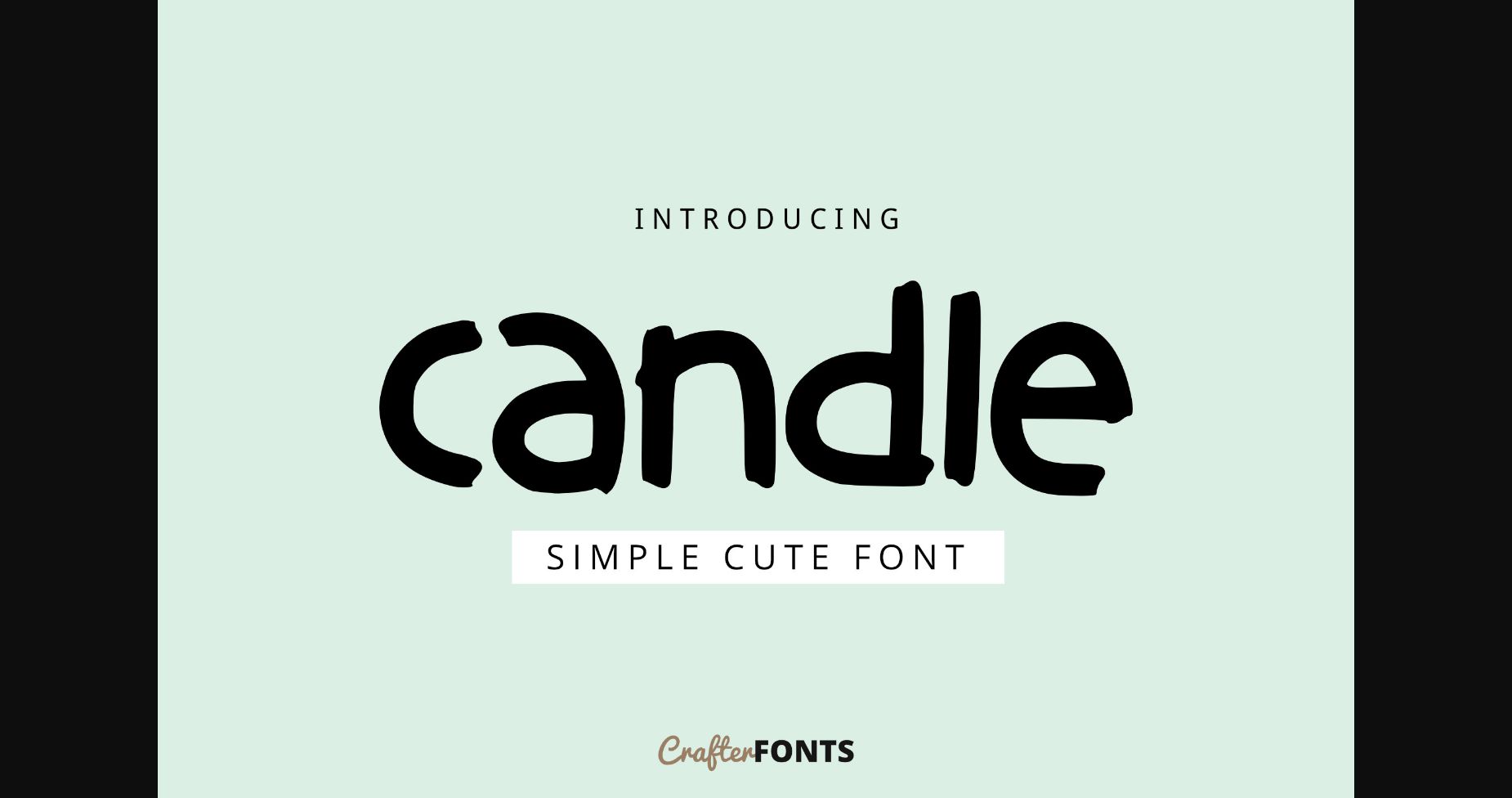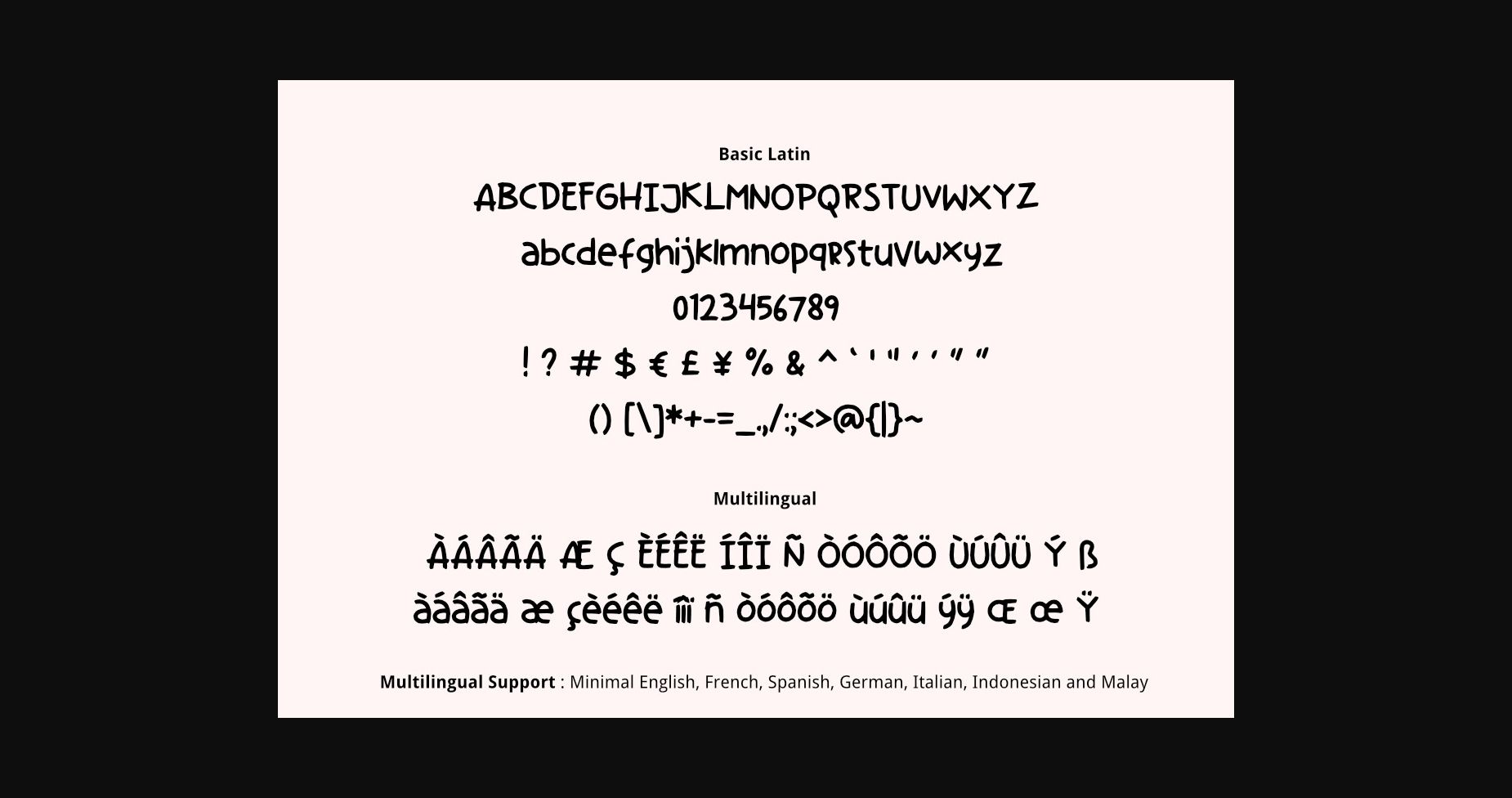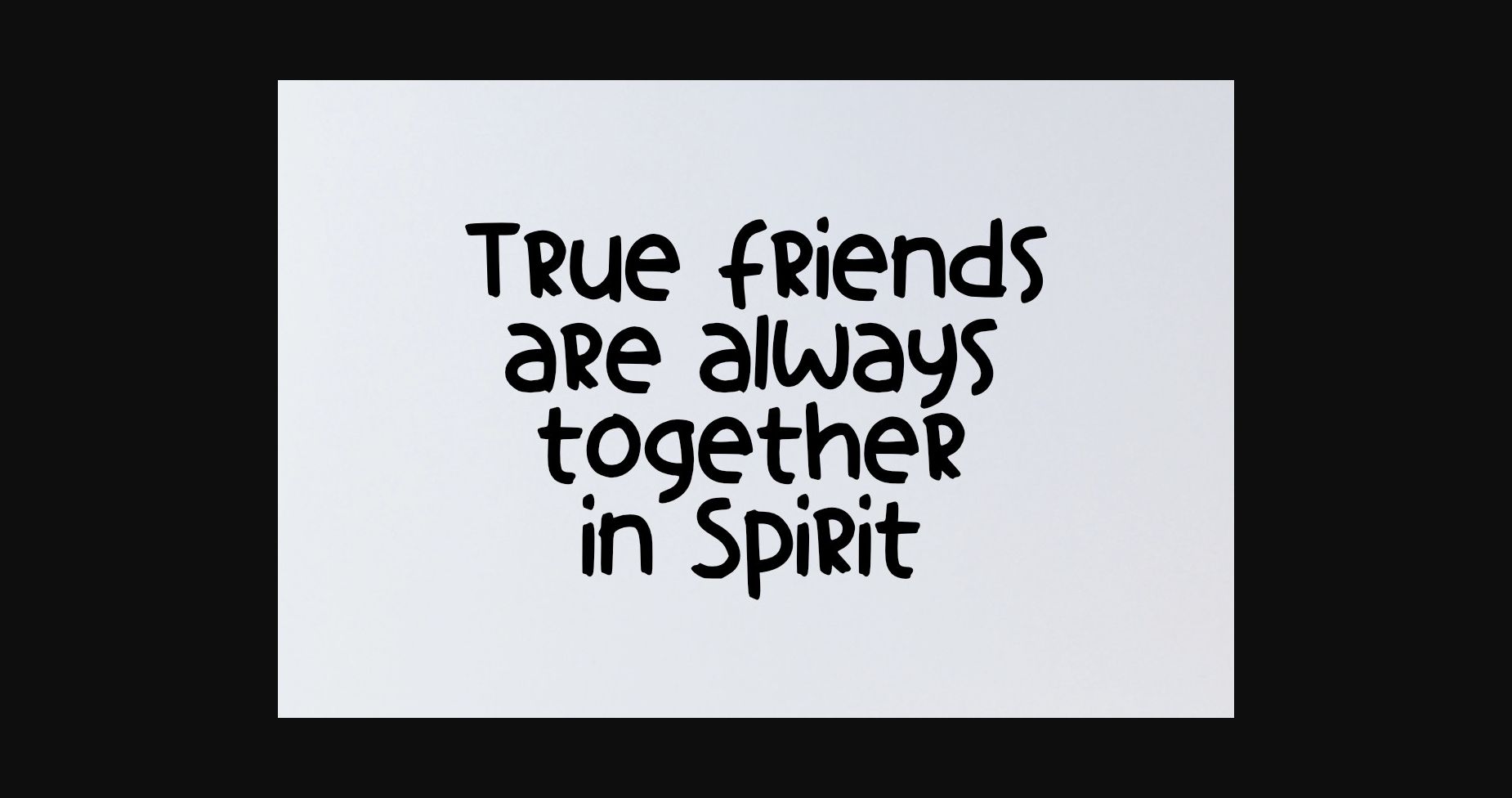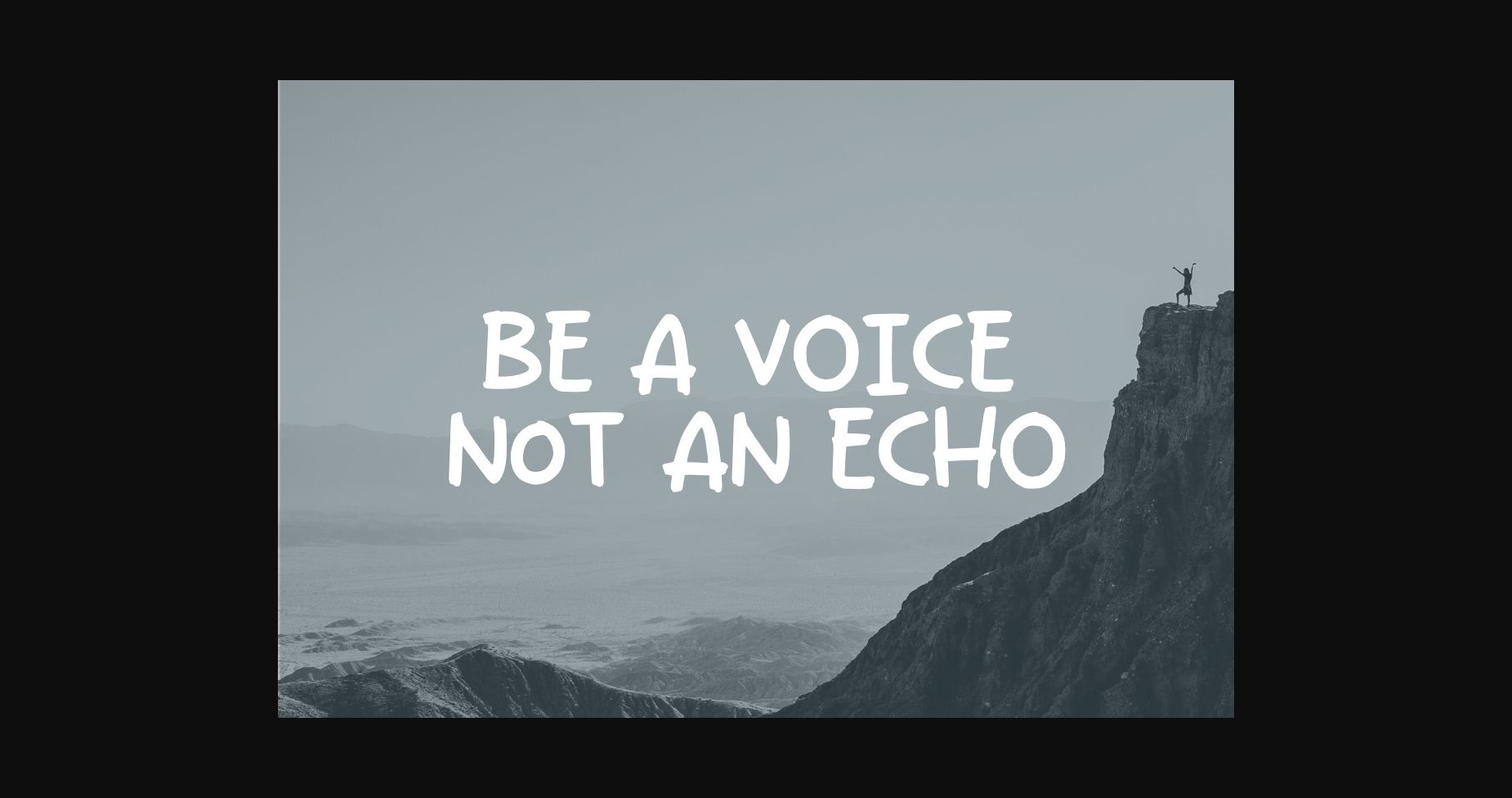
Candle is a simple and modern sans serif font suitable for quotes, logos, headings, titles, and many more. Use it on any of your creative projects, and your designs will become outstanding!